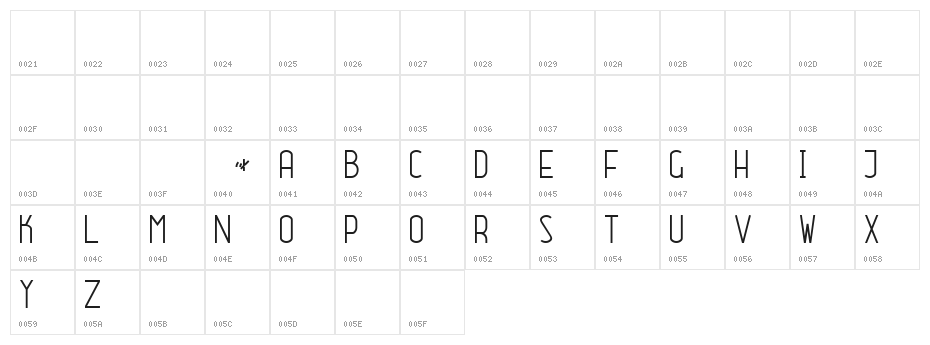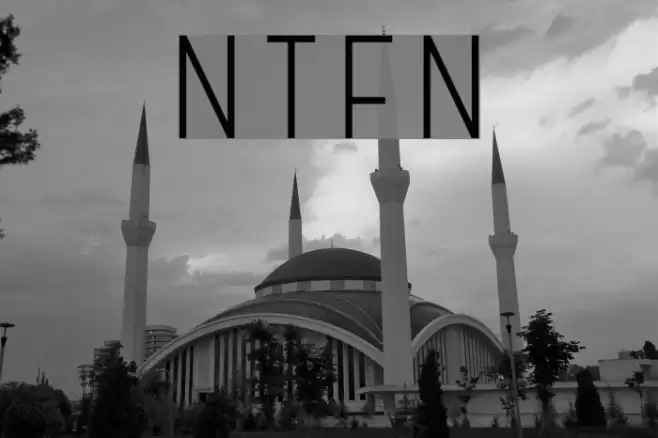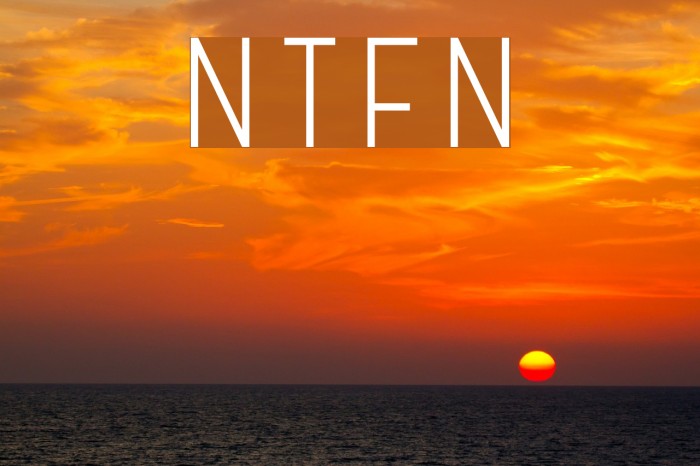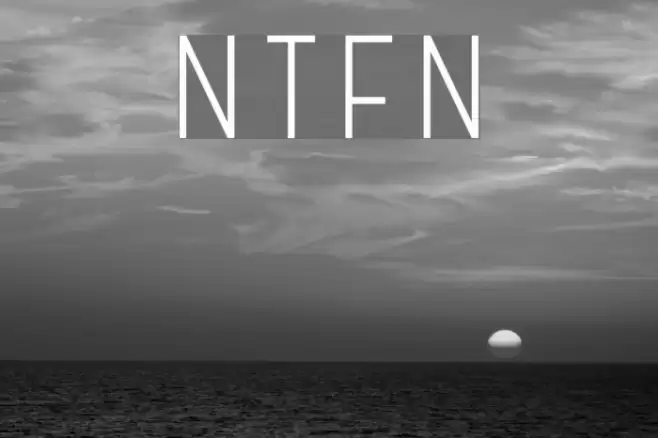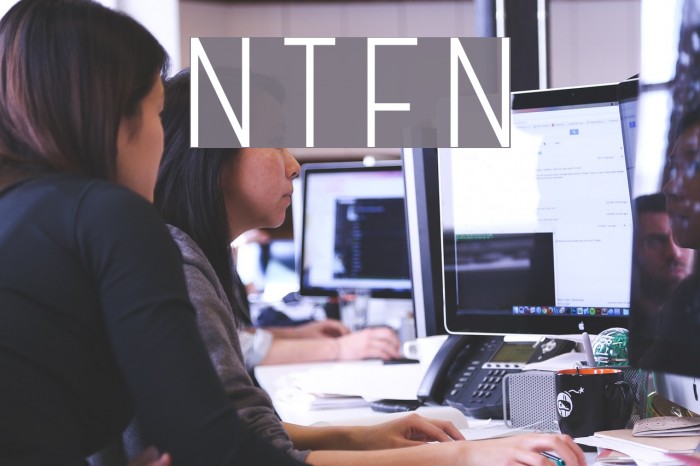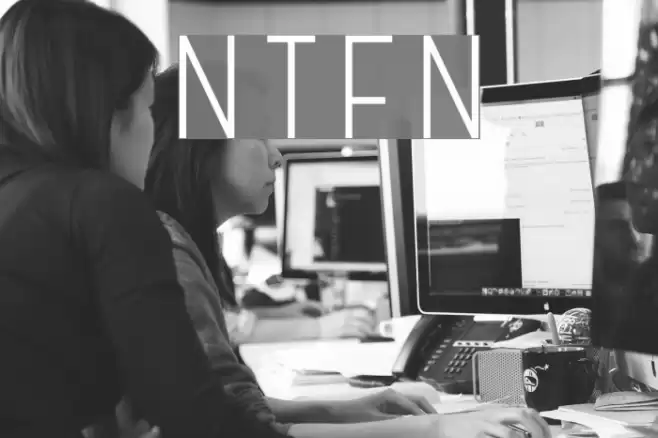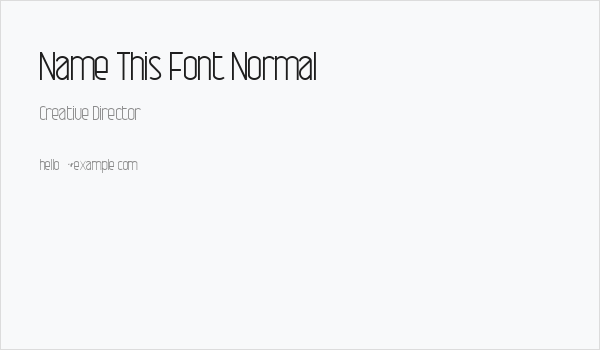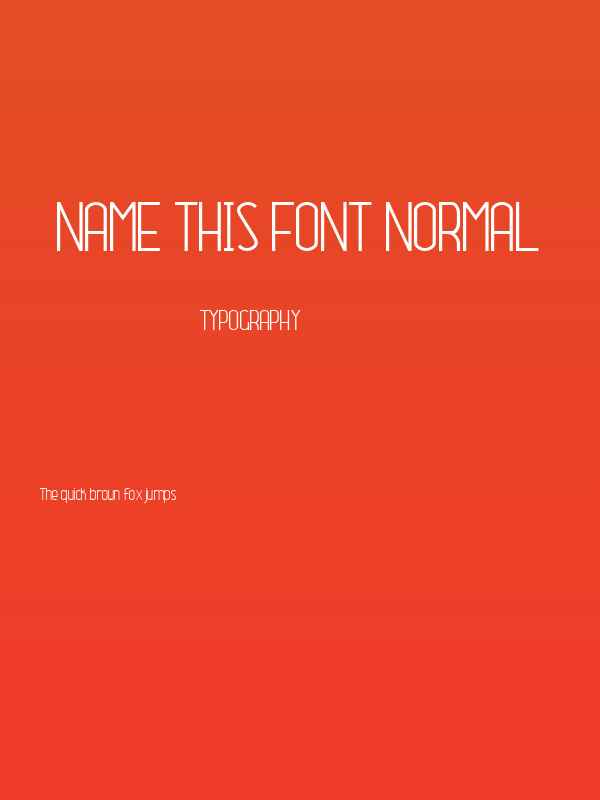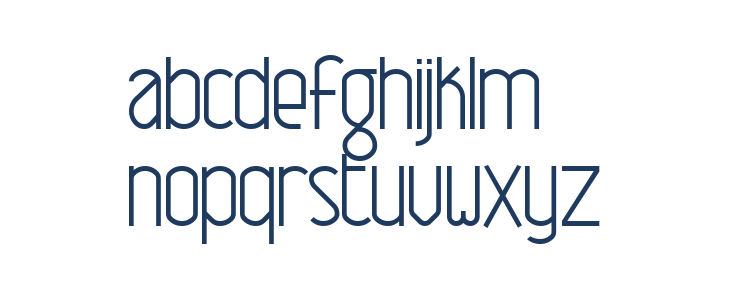
Name This Font Normal Font
Name This Font Normal Description
This font features a clean, geometric design with a modern aesthetic. The characters are constructed with consistent line thickness, giving it a uniform appearance. The uppercase letters are tall and narrow, while the lowercase letters maintain a similar width, creating a cohesive look. The font's minimalistic style is enhanced by its straight lines and sharp angles, making it suitable for contemporary design projects. Its simplicity and clarity ensure readability, even at smaller sizes.
| Use Case | Headlines, Logos, Digital Interfaces |
| Proposed Projects | Ideal for modern branding, digital interfaces, and minimalist design projects. |